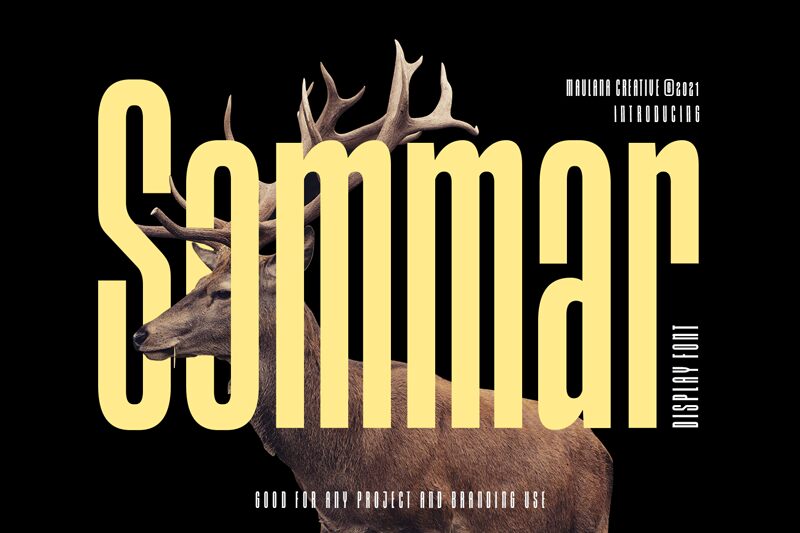
Sommar by Maulana Creative is a light, ultra-condensed sans serif font perfect for crafting an eye-catching logo or headline. This modern typeface is great for minimalist designs, posters, and social media graphics.
Classe della famiglia Senza terminazioni
Larghezza Ultra condensato